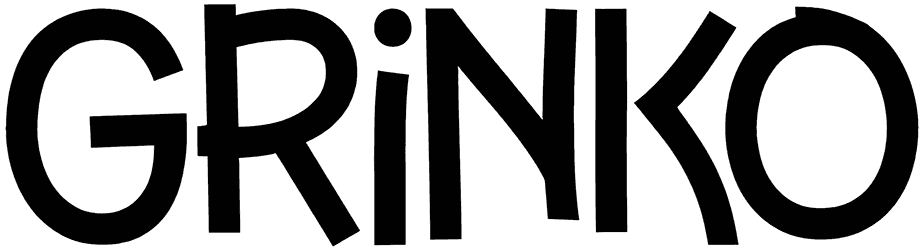
Grinko Font
Want to see what happens when you let one of our fun fonts in your lettering? Grinko here can be a good option to start experimenting with this practical category of fonts. It has started playing you already by skipping most of the lowercase letters and replacing them with capitals.
Let’s see how easy it can be to keep the audience entertained when you can rely on the playful tone of Grinko in your accessory online shop logos, tropical posters, etc.